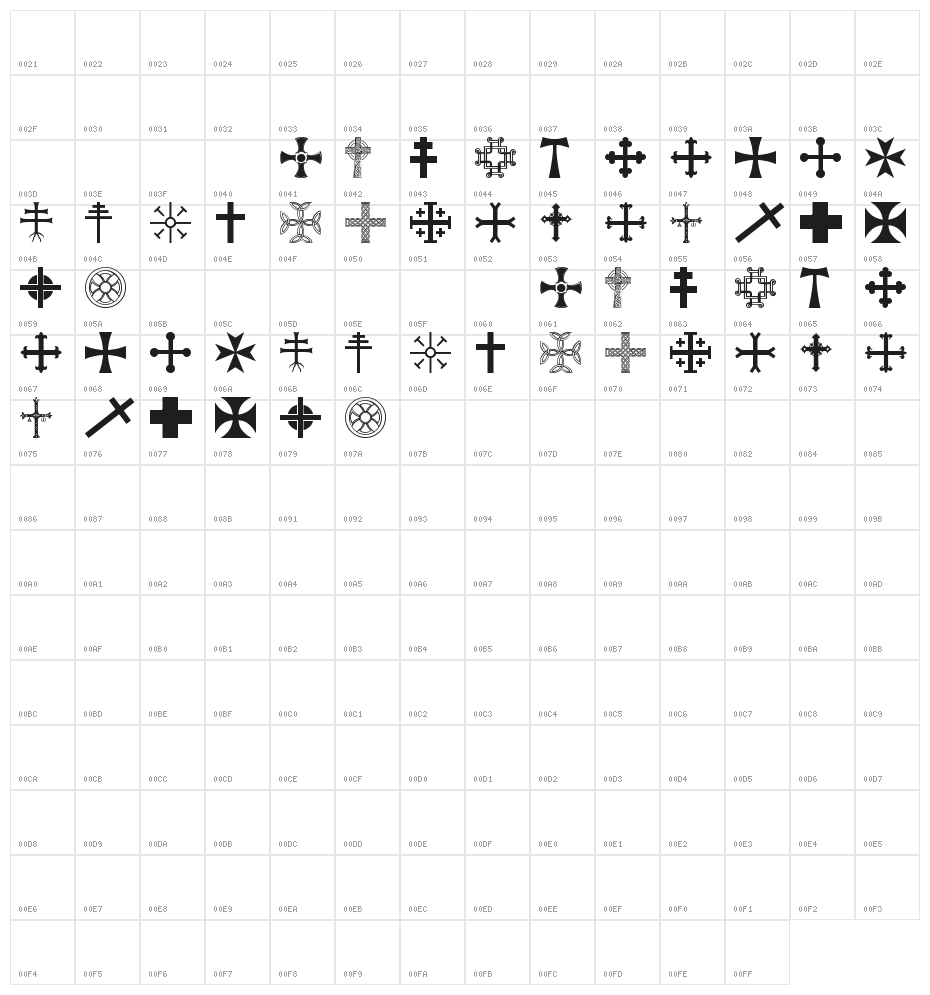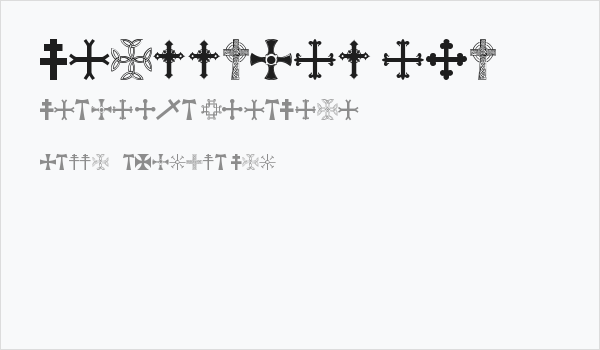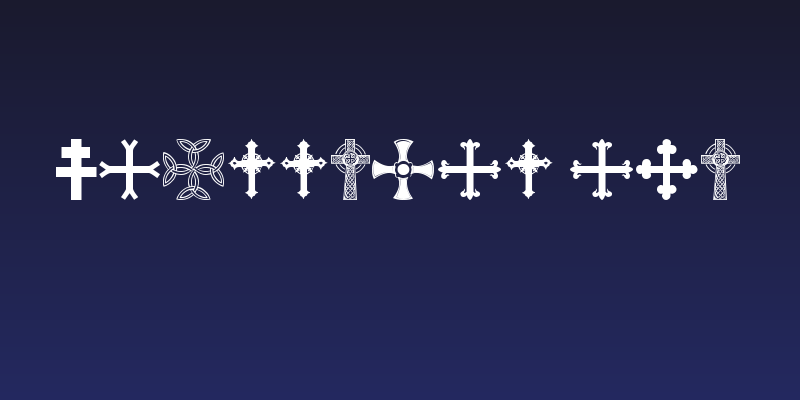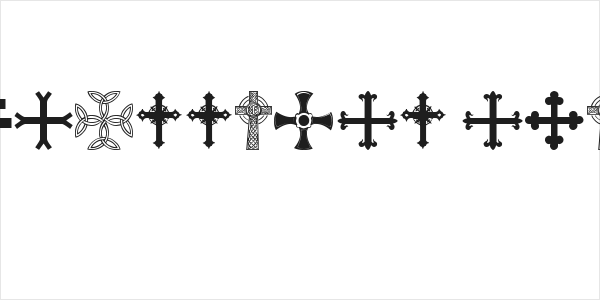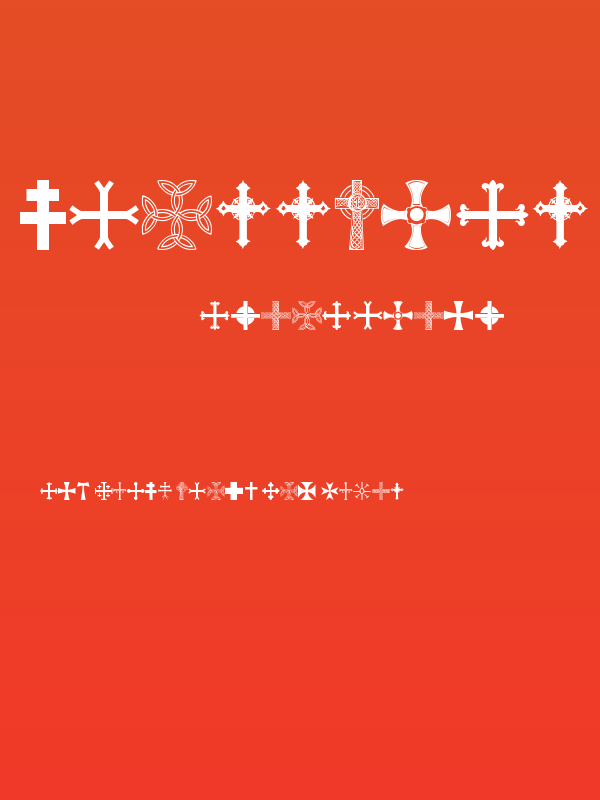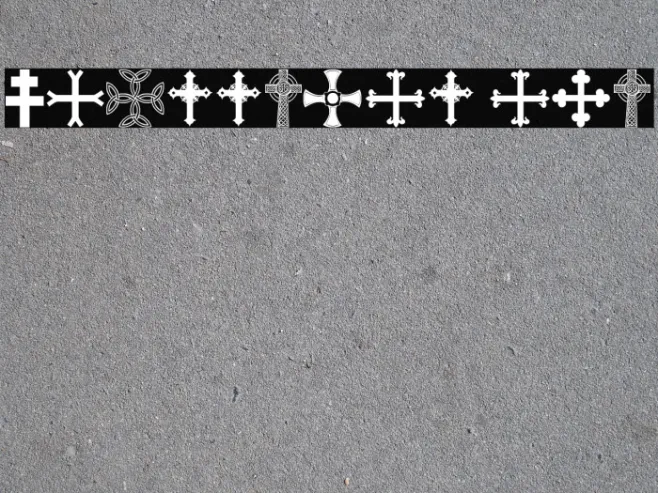
crossbats tfb Font
crossbats tfb Description
This collection features a diverse array of cross symbols, each with unique and intricate designs. The symbols range from simple, bold crosses to more elaborate and decorative ones, incorporating elements such as Celtic knots, geometric patterns, and varying line thicknesses. The style is predominantly decorative, with a focus on symmetry and balance. Each symbol is distinct, offering a variety of interpretations of the classic cross shape. The designs are suitable for projects that require a historical or religious aesthetic, as well as those that aim to incorporate symbolic or ornamental elements.
| Use Case | Logos, Decorative art, Religious publications |
| Proposed Projects | Ideal for religious publications, historical design projects, logos, and decorative art pieces. |